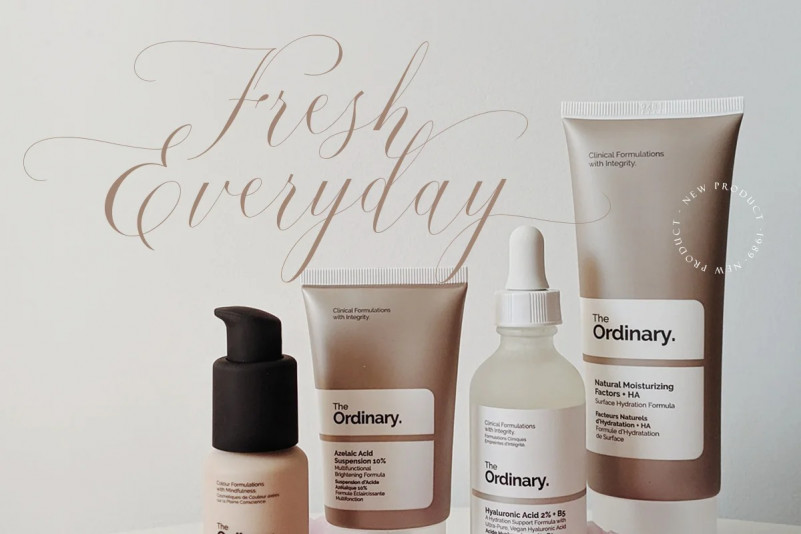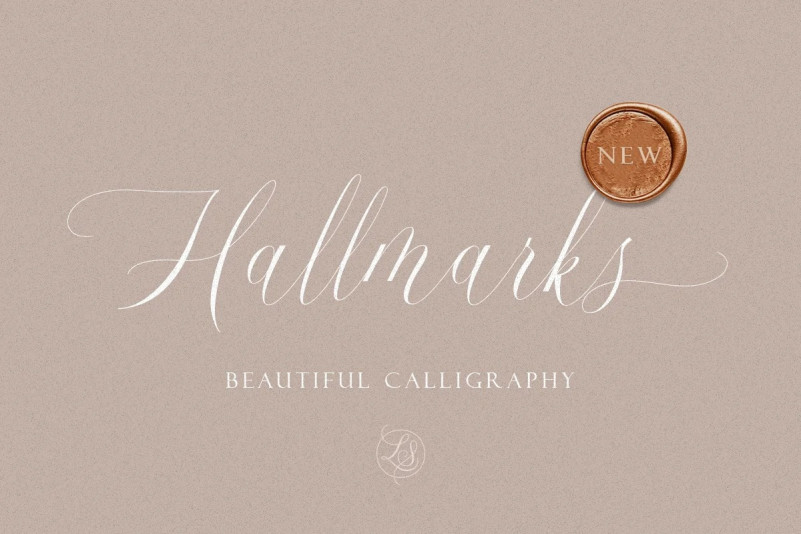
Hallmarks Calligraphy Font
This is a calligraphic font, created to look as close to a natural handwritten script as possible. This font will add a feminine touch to make your design more soft and beautiful. This font is perfect for wedding invitation, quotes, branding, packaging, etc.